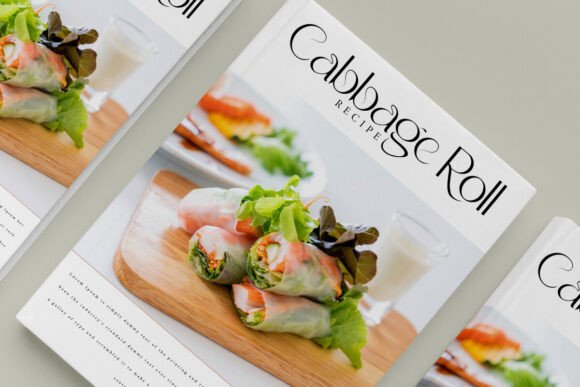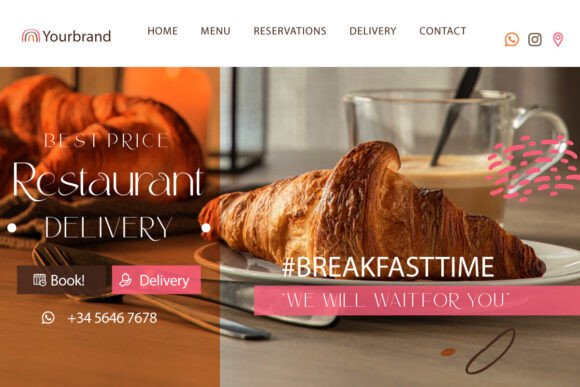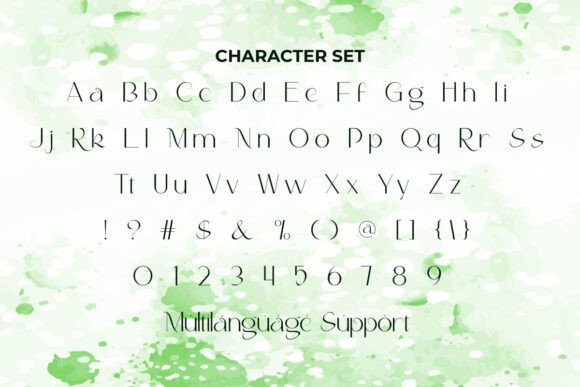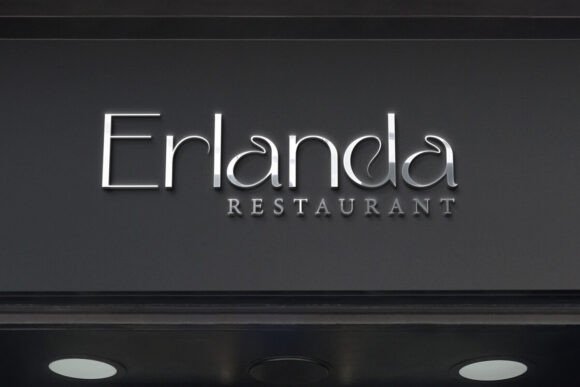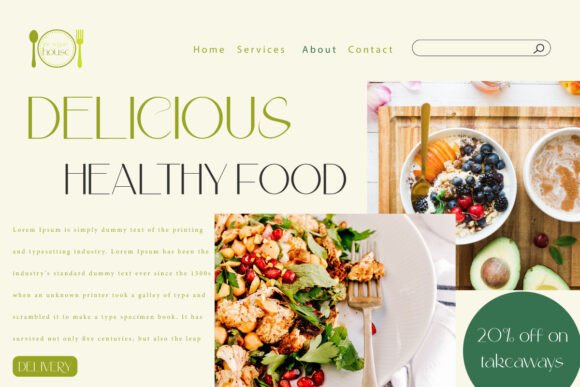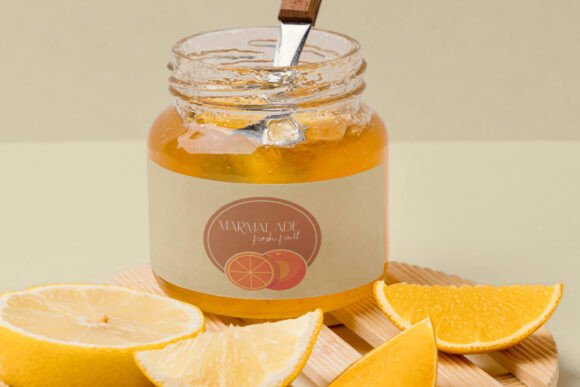
Cabbage Roll Font: The Perfect Addition to Your Design Projects
In the world of typography, fonts play a crucial role in conveying the tone and personality of a design. For designers and crafters looking for a unique and elegant font, Cabbage Roll Font is an excellent choice. This modern serif display font is inspired by the humble cabbage, a healthy vegetable that’s packed with nutrients. In this article, we’ll explore the features and benefits of Cabbage Roll Font and how it can elevate your design projects.
What is Cabbage Roll Font?
Cabbage Roll Font is a beautifully crafted serif display font that’s perfect for adding a touch of sophistication to your designs. Its elegant and modern aesthetic makes it suitable for a wide range of applications, from apps and blogs to brochures, catalogues, and more. The font’s inspiration from the cabbage vegetable gives it a fresh and natural feel that’s sure to appeal to designers and crafters looking for a unique typographic solution.
Key Features of Cabbage Roll Font
So, what makes Cabbage Roll Font stand out from other fonts? Here are some of its key features:
- Elegant and Modern Design: Cabbage Roll Font boasts a sleek and contemporary design that’s perfect for creating visually appealing designs.
- Serif Display Font: The font’s serif style adds a touch of sophistication and elegance to your designs, making it ideal for display purposes.
- Versatile: Cabbage Roll Font can be used for a wide range of design projects, including apps, blogs, brochures, catalogues, covers, flyers, headers, logos, menus, packaging design, posters, product labels, quotes, screen prints, signage, stationery, stickers, titles, websites, and more.
- Inspired by Nature: The font’s inspiration from the cabbage vegetable gives it a fresh and natural feel that’s perfect for designers and crafters looking for a unique typographic solution.
Benefits of Using Cabbage Roll Font
So, why should you choose Cabbage Roll Font for your design projects? Here are some benefits of using this amazing font:
- Stand Out from the Crowd: Cabbage Roll Font’s unique and elegant design ensures that your designs stand out from the crowd and grab the attention of your audience.
- Enhance Your Brand’s Identity: The font’s modern and sophisticated aesthetic can help enhance your brand’s identity and create a lasting impression on your customers.
- Easy to Read: Despite its elegant design, Cabbage Roll Font is easy to read, making it perfect for body text and display purposes.
- Flexible: The font’s versatility ensures that it can be used for a wide range of design projects, from print materials to digital applications.
How to Use Cabbage Roll Font
Using Cabbage Roll Font is easy and straightforward. Here are some tips on how to get the most out of this amazing font:
- Pair it with Other Fonts: Cabbage Roll Font can be paired with other fonts to create a unique and visually appealing typographic combination.
- Experiment with Different Sizes: The font’s elegant design ensures that it looks great in different sizes, from large display text to smaller body text.
- Use it for Display Purposes: Cabbage Roll Font is perfect for display purposes, such as headings, titles, and captions.
In conclusion, Cabbage Roll Font is an excellent choice for designers and crafters looking for a unique and elegant font. Its modern serif design, inspired by the humble cabbage vegetable, makes it perfect for a wide range of design projects. With its versatility, flexibility, and ease of use, Cabbage Roll Font is sure to become a staple in your typographic collection. So why wait? Download Cabbage Roll Font today and take your designs to the next level!